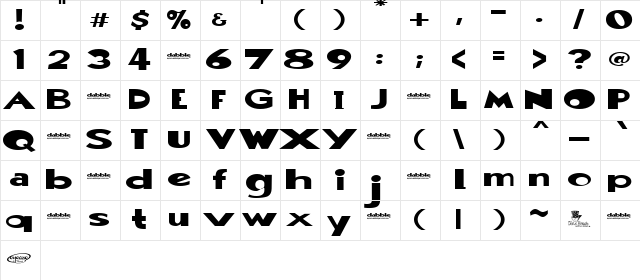
Dabble Evaluation Free Font
Dabble Evaluation
Design Context for Dabble
Dabble is a composed and adaptable typeface that performs quietly and consistently across a wide range of design contexts.